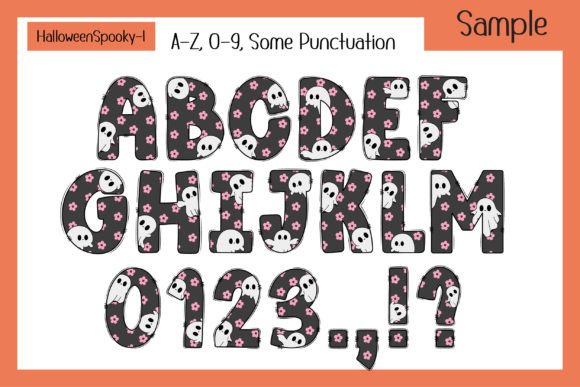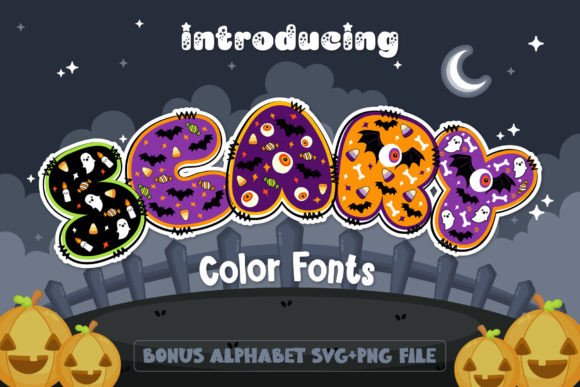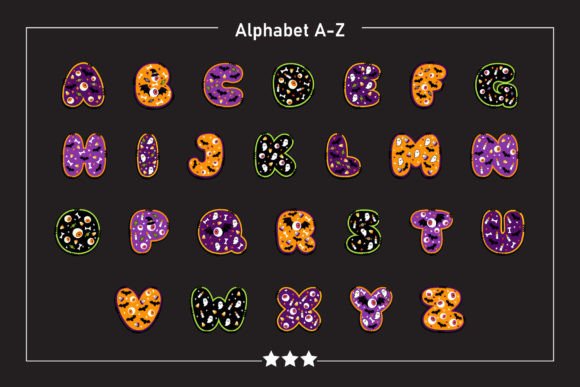
Best Halloween Color Fonts for Invitations, Shirts, and Crafts
The best Halloween color fonts do more than put orange letters on a black background. They can turn each character into a tiny illustration, complete with pumpkins, ghosts, candy, slime, cobwebs, or distressed textures.
I especially like them for projects where plain black lettering feels unfinished. A detailed color font can carry most of a party invitation, classroom sign, shirt graphic, mug wrap, or social post without requiring a pile of separate clip art.
There is one technical detail to check before downloading, though. Many of these products use the OpenType-SVG format, which stores colors, gradients, textures, and transparency inside the glyphs. Adobe explains that this format can produce graphically rich characters while keeping the words editable, but support depends on the software and version you use.
- Best overall: Spooky by Nobu Collections
- Best for kids and sublimation: Halloween Spooky by Issie_Studio
- Best for fall-to-Halloween products: Pumpkin Font by Fox7
- Best darker option: Horror by Rabeya
- Best retro option: Halloween by october.store
How I Picked These
I compared these Halloween color fonts by display readability, seasonal versatility, visual distinctiveness, software compatibility, production flexibility, and how well each option works for common projects such as invitations, shirts, stickers, signs, sublimation designs, and social graphics.
The Best Halloween Color Fonts
1. Spooky by Nobu Collections
My pick for the best all-around Halloween color font
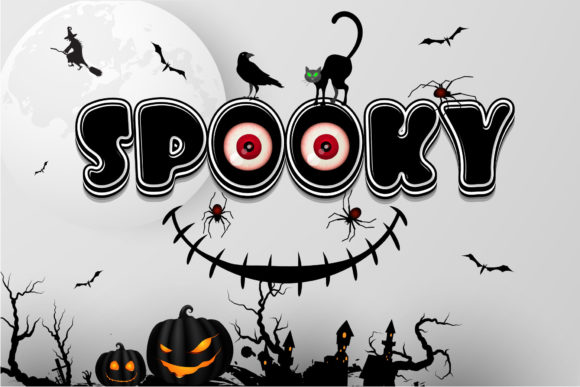
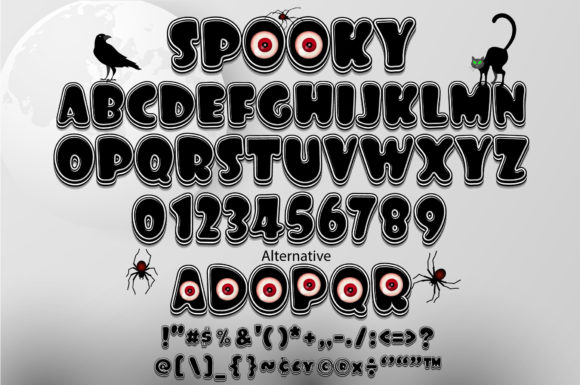
The letters have a fun, creepy appearance rather than a genuinely disturbing horror style. That balance makes the font usable across a broad range of projects. I would consider it for trick-or-treat bags, party banners, October social graphics, kids’ apparel, and large porch signs.
Its detailed characters are naturally better suited to headlines than fine print. Give the letters enough room to breathe, particularly if the word contains several narrow characters or small decorative elements.
Best for: Party signs, shirts, social graphics
Key features: OpenType-SVG format, creepy-cute style, strong popularity, multicolor glyphs
2. Spooky by Fox7
Best for detailed Halloween headlines
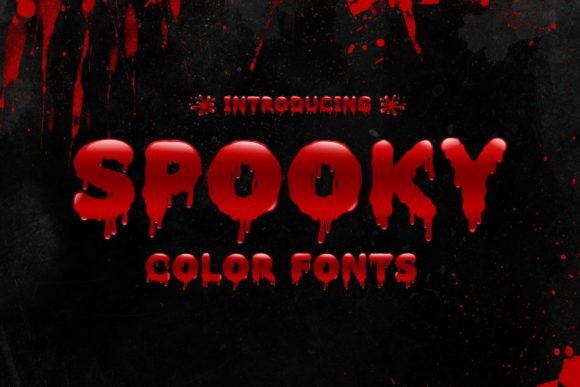
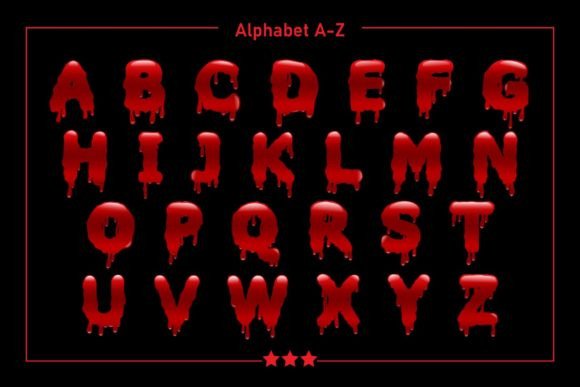
My take is that this option suits designers who want the lettering itself to provide most of the decoration. Rather than adding a plain font beside separate bats, pumpkins, or monsters, you can use the illustrated characters as the central graphic.
That makes it useful for posters, treat-bag toppers, digital invitations, printable wall art, and short product phrases. I would keep the copy brief. A phrase such as “Spooky Season” gives the individual letters more space than a full sentence.
Best for: Posters, invitations, printable decor
Key features: Illustrated letters, OpenType-SVG color, detailed Halloween styling, high favorite count
3. Pumpkin Font by Fox7
Best for designs that span fall and Halloween
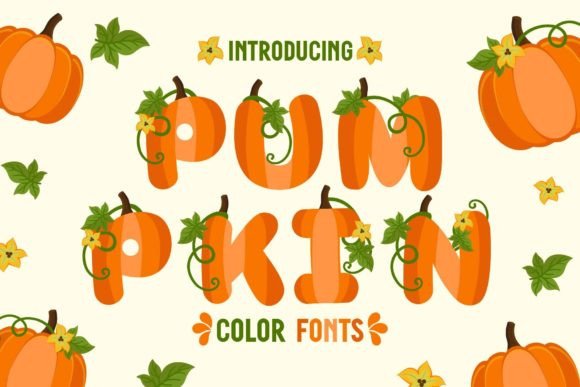
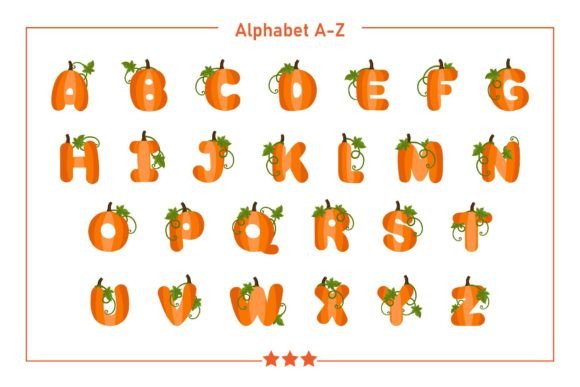
Not every October design needs ghosts, blood, or haunted-house imagery. Pumpkin Font has a warmer seasonal look that can move from early fall projects into Halloween and Thanksgiving.
This is one of the most popular listings I found, with more than 600 additions to favorites at the time of research. The product is described as a color font intended to create an autumn impression, and its previewed use cases include invitations, stationery, social posts, and greeting cards.
I would pick this one for pumpkin-patch signs, harvest invitations, fall market displays, family shirts, and classroom decor. It is also easier to reuse outside the narrow Halloween window, which adds value for sellers who create seasonal collections.
Because the pumpkin treatment already has color and texture, pair it with a very plain sans serif for dates, prices, or supporting copy. Two highly decorative faces on the same page will compete for attention.
Support varies by version, but Creative Fabrica listings commonly identify Photoshop, Illustrator, Silhouette, and Inkscape as compatible. Adobe documents OpenType-SVG functionality in modern Photoshop versions.
What is the best Halloween font for sublimation?
Halloween Spooky is the most flexible sublimation pick in this list because it includes multiple font styles, coordinated clip art, and both color and black options. Spooky by Nobu Collections is my choice when the lettering needs to dominate the design.